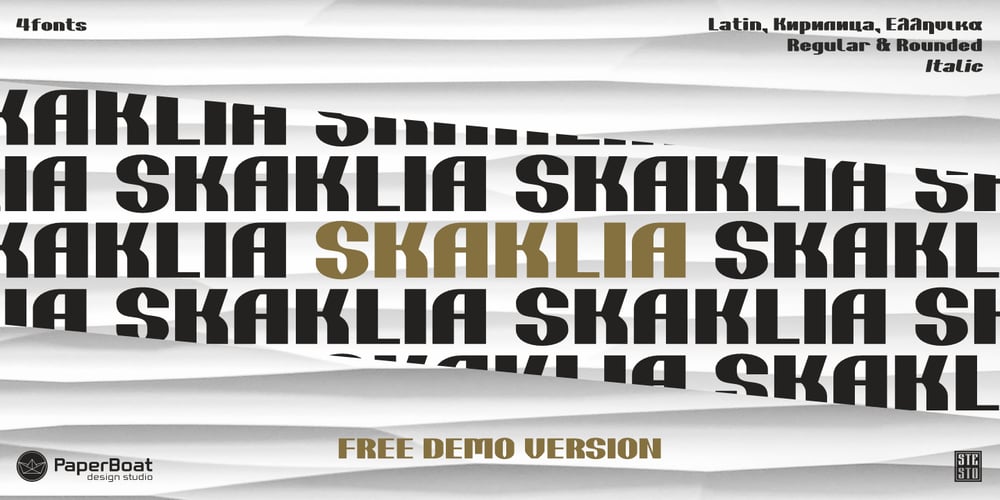
Skaklia Font Family was designed by Stefan Stoychev and published by Stefan Stoychev. Skaklia contains 5 styles and family package options. The Skaklia font family is a clean and modern sans-serif typeface designed to offer versatility and sophistication. Defined by its thoughtful balance of thick and thin bars, Skaklia combines clarity with elegance, making it a standout choice for professional and creative design projects. Its unique structure ensures a contemporary aesthetic while maintaining exceptional readability.The font family consists of four variations: Regular, Italic, and their Rounded counterparts. The Regular and Italic styles exude precision and sharpness, while the Rounded versions soften the overall feel, adding a friendly and approachable touch. This diverse range makes Skaklia ideal for a variety of applications, from branding and editorial design to digital and print projects. Suitable for bold headlines, magazine layouts, brochures, and other print materials that require clarity and elegance. Excellent for logos, wordmarks, and corporate identities seeking a modern, clean aesthetic. Works seamlessly in apps and websites, ensuring readability across all screen sizes.The Italic variant introduces a slanted, dynamic version for emphasis and movement, while adding a sense of flow and energy. Ideal for callouts, quotes, or emphasizing specific phrases in both print and digital contexts.The Rounded variant softens the crisp edges, offering a more approachable and friendly aesthetic. The rounded corners and smooth curves retain the clean structure while making it feel warmer and more inviting. The Rounded Italic variant combines the expressive motion of Italic with the softness of rounded edges. This variation is perfect for designs that require a dynamic yet approachable feel.The design of Skaklia is rooted in modernist principles of clarity and functionality, with a focus on the harmonious interplay of thick and thin strokes. This distinctive feature gives the font its elegant, high-contrast appearance.By providing Regular and Italic styles alongside their Rounded counterparts, Skaklia allows designers to effortlessly switch between sharp precision and soft approachability while maintaining a cohesive typographic identity.The Skaklia font is a comprehensive typographic solution for designers seeking modern, versatile, and elegant sans-serif typography. With its four distinct styles, Skaklia provides the tools to create a cohesive and visually engaging typographic system that stands out in any project.